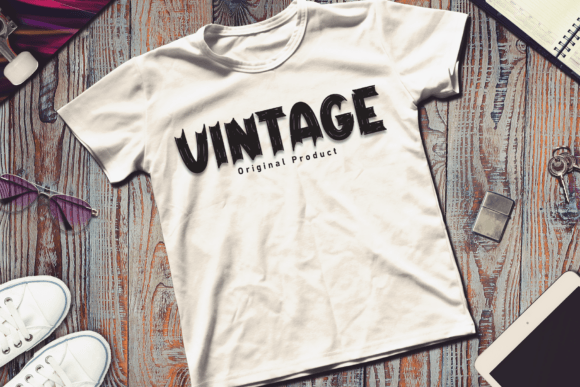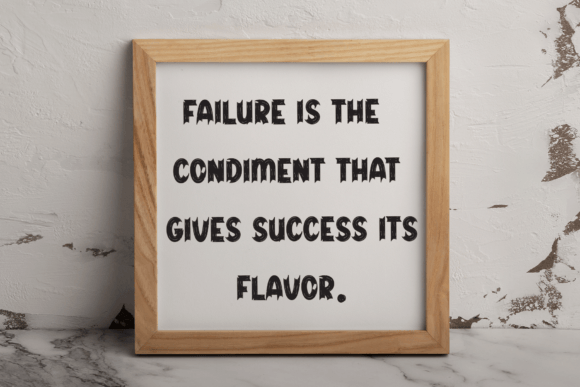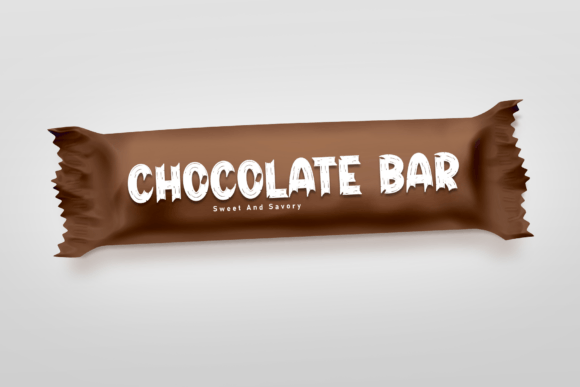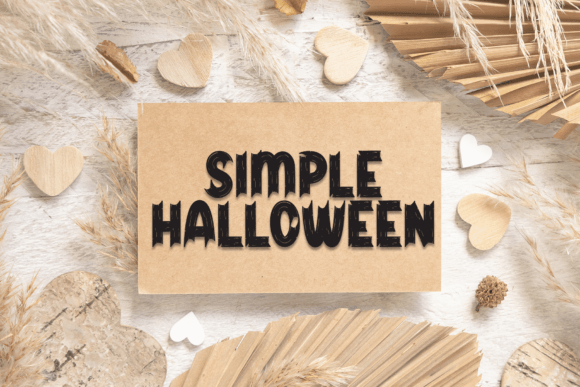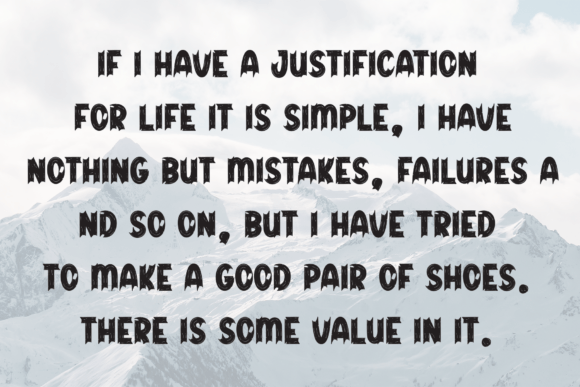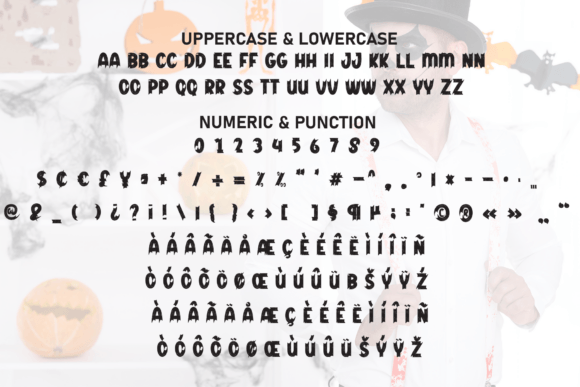
Unleash the Spooky Spirit with Costume Halloween Font
Halloween is just around the corner, and what better way to get into the spooky spirit than with a font that’s as eerie as it is playful? Look no further than the Costume Halloween Font, a bold and fun typeface that’s perfect for all your Halloween needs. Whether you’re designing costumes, party invitations, or decorations, this font is sure to cast a spell on your audience.
What is Costume Halloween Font?
Costume Halloween Font is a unique and creative typeface that embodies the festive spirit of Halloween. Its fun, bold letters are designed with eerie shapes and designs that are sure to send shivers down your spine. From the twisted and turned letterforms to the creepy crawly details, this font is a masterclass in spooky design.
Features of Costume Halloween Font
So, what makes Costume Halloween Font so special? Here are just a few of its standout features:
• Bold and playful letters: Each letter in the font is carefully crafted to be bold, playful, and eye-catching, making it perfect for headlines, titles, and more.
• Eerie shapes and designs: From ghostly swirls to spider web details, the font is packed with creepy and kooky designs that will add an extra layer of spookiness to your designs.
• Perfect for Halloween designs: Whether you’re creating costumes, party invitations, decorations, or more, this font is specifically designed to capture the festive spirit of Halloween.
Uses for Costume Halloween Font
So, what can you use Costume Halloween Font for? The possibilities are endless! Here are a few ideas to get you started:
• Costume designs: Create spooky and playful costume designs for Halloween, from ghostly hoodies to creepy crawly t-shirts.
• Party invitations: Invite your friends and family to a spooktacular Halloween party with custom invitations featuring the Costume Halloween Font.
• Decorations: Add a touch of spookiness to your Halloween decorations, from creepy banners to haunted house signs.
• Social media graphics: Create spooky and engaging social media graphics, from Facebook posts to Instagram stories.
Why Designers and Crafters Love Costume Halloween Font
So, why do designers and crafters love Costume Halloween Font? Here are just a few reasons:
• High-quality design: The font is carefully crafted to be high-quality and visually appealing, making it perfect for professional designs.
• Versatile: The font can be used for a wide range of designs, from digital to print.
Tips for Using Costume Halloween Font
Here are a few tips for getting the most out of Costume Halloween Font:
• Experiment with different colors: Try out different colors and color combinations to add an extra layer of spookiness to your designs.
• Play with font sizes: Experiment with different font sizes to create visual interest and hierarchy in your designs.
• Add textures and effects: Add textures and effects to your designs to give them an extra layer of depth and interest.
In conclusion, Costume Halloween Font is a spooky and playful font that’s perfect for all your Halloween needs. With its bold and fun letters, eerie shapes and designs, and versatility, this font is sure to be a hit with designers and crafters alike. So why wait? Download Costume Halloween Font today and start creating your own spooky and spectacular Halloween designs!